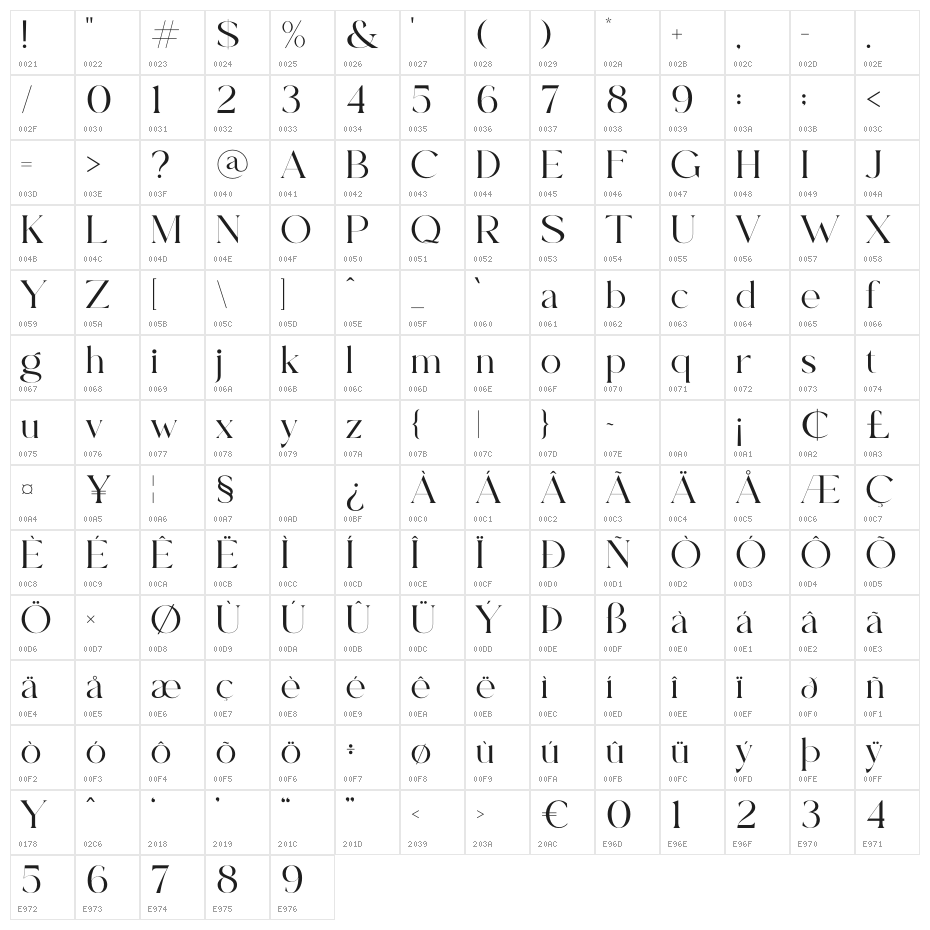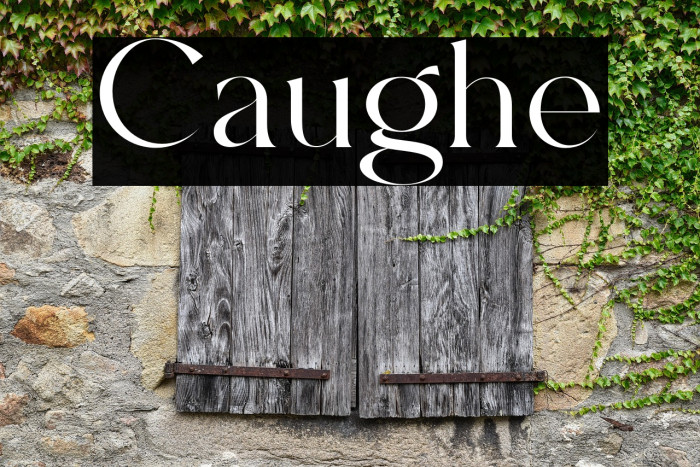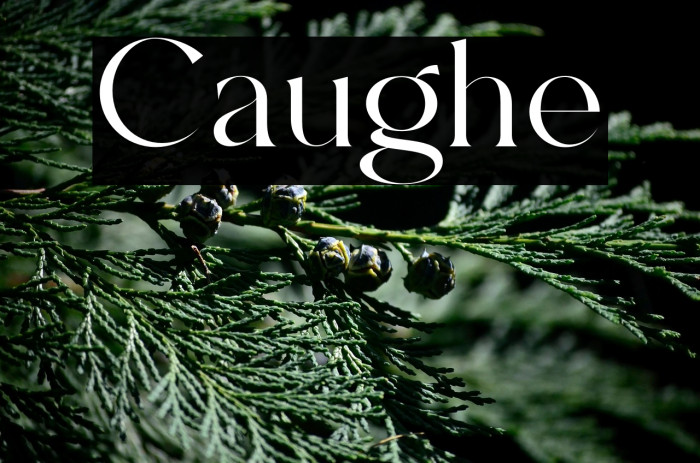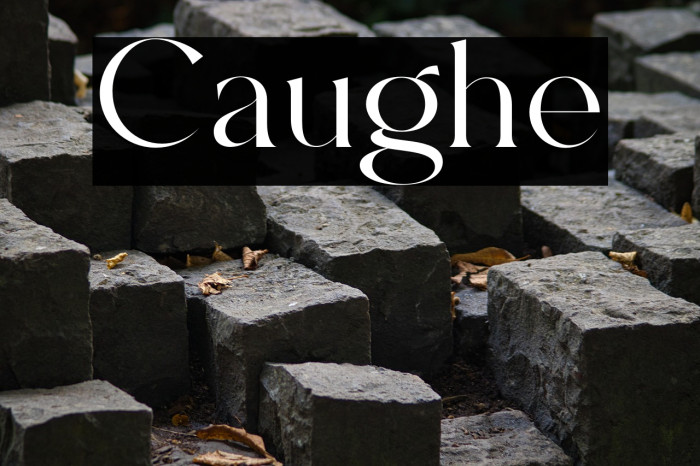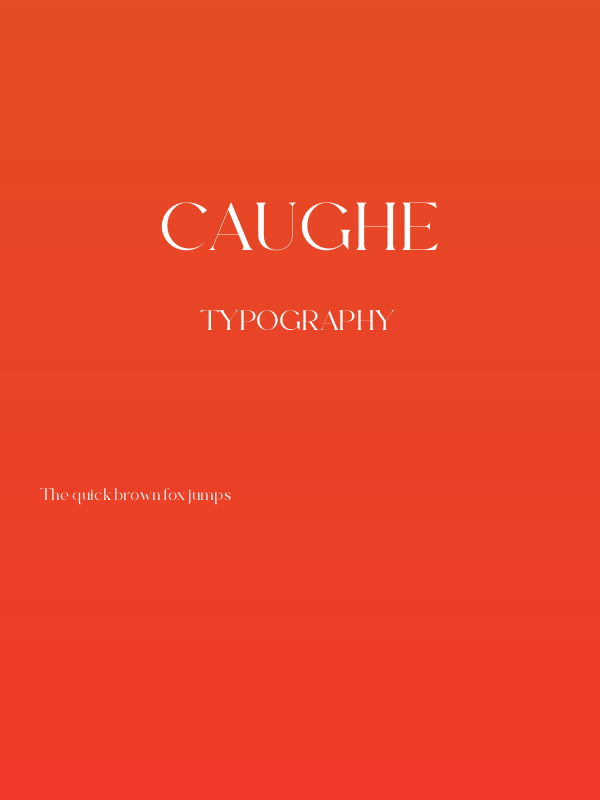
Caughe Font
Caughe Description
This font exhibits a refined and elegant style, characterized by its high contrast between thick and thin strokes. The serifs are sharp and pronounced, adding a touch of sophistication. The uppercase letters are tall and commanding, while the lowercase letters maintain a graceful flow. The numerals are distinct and well-proportioned, ensuring clarity. Special characters are crafted with the same attention to detail, making them visually cohesive with the rest of the typeface. Overall, this font combines classic serif elements with a modern twist, making it versatile for various design applications.
| Proposed Projects | Ideal for luxury branding, editorial design, wedding invitations, and high-end product packaging. |